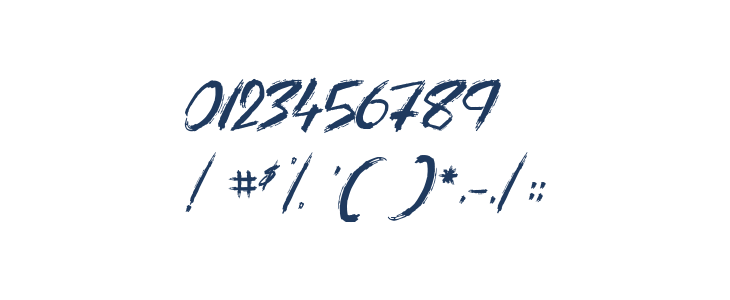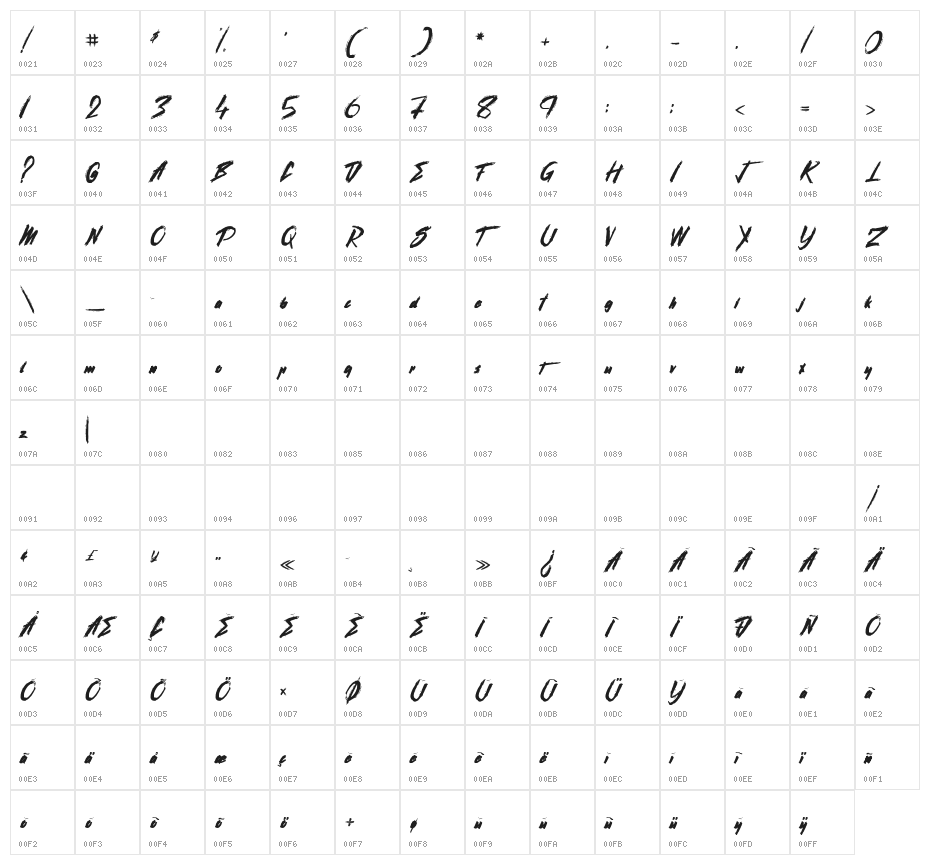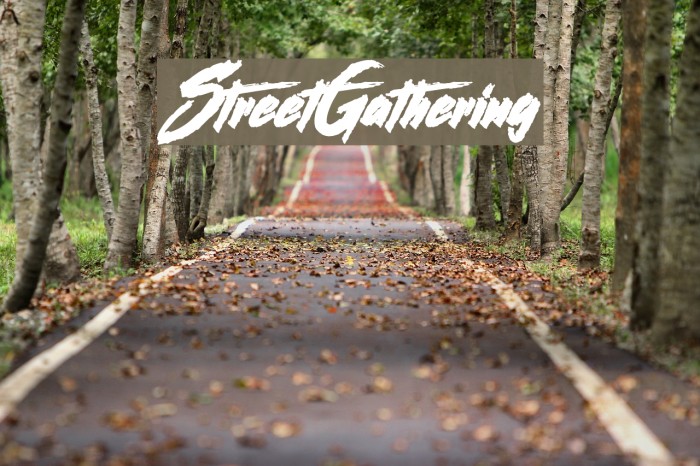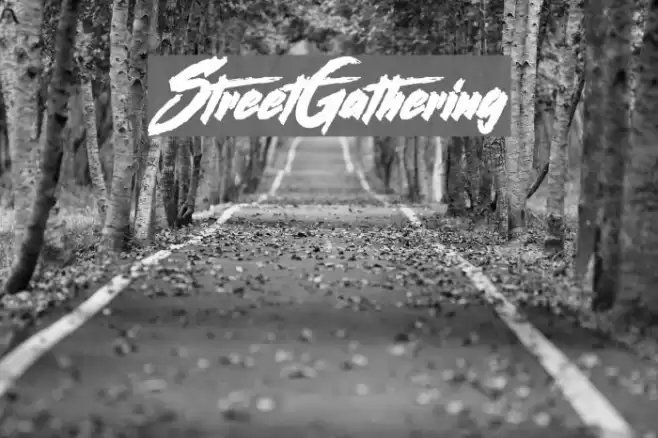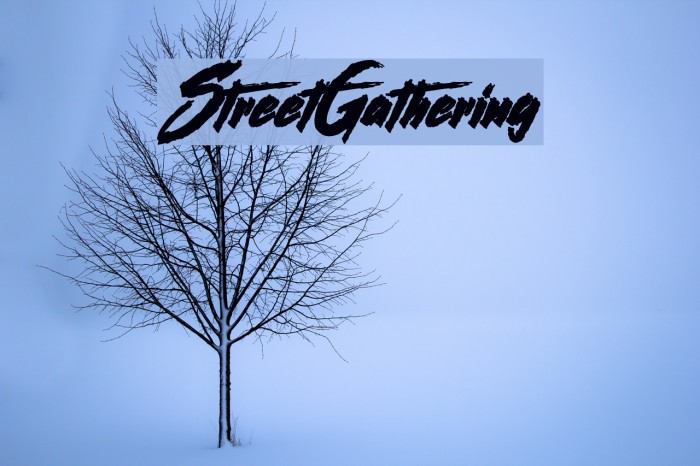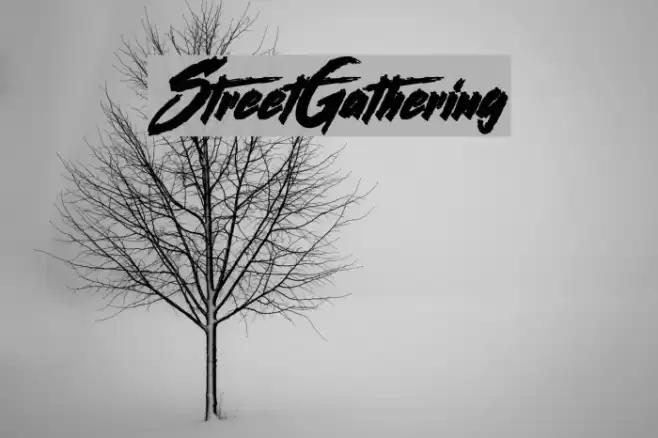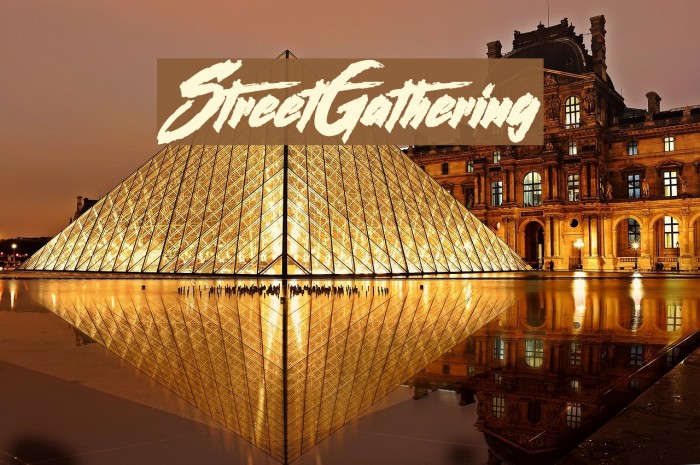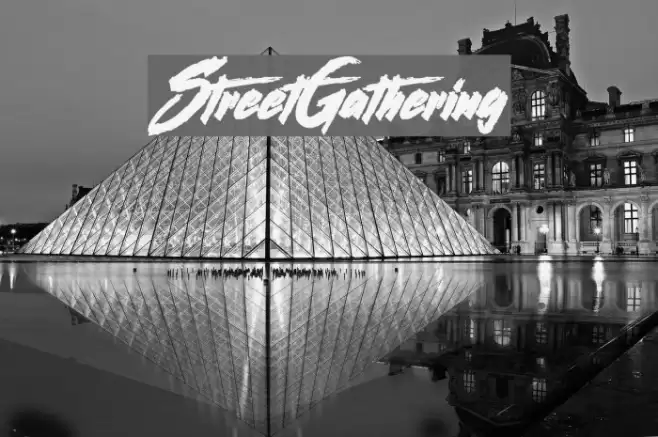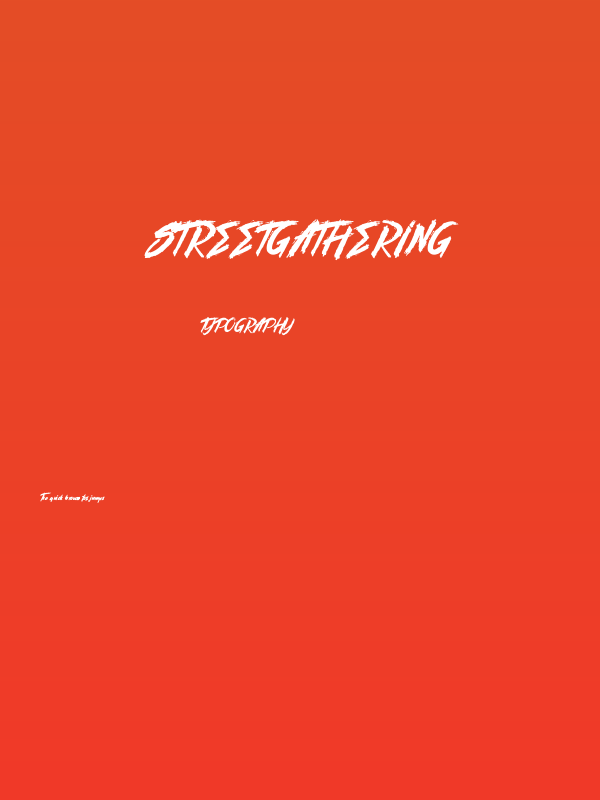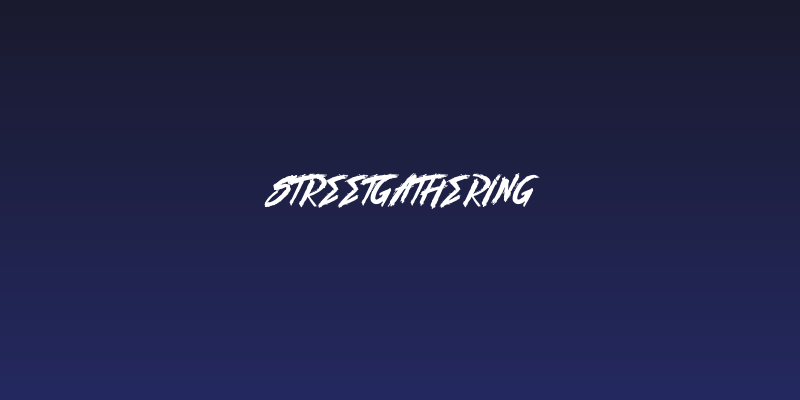
StreetGathering Font
StreetGathering Description
This font exudes a raw, energetic vibe with its bold, brush-like strokes that create a sense of movement and dynamism. The uppercase letters are particularly striking, with sharp angles and a slightly irregular baseline that adds to its edgy, street-inspired aesthetic. The lowercase letters maintain this energy, though they are slightly more restrained, providing a nice balance. Numbers and special characters follow the same style, ensuring consistency across all elements. This font is perfect for projects that require a bold statement, capturing attention with its unique and artistic flair.
Proposed ProjectsIdeal for urban-themed designs, graffiti art, music album covers, and event posters.